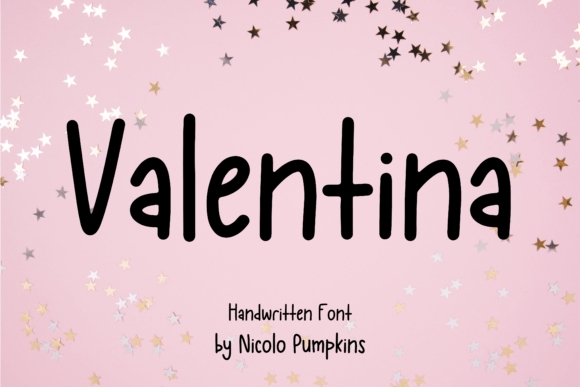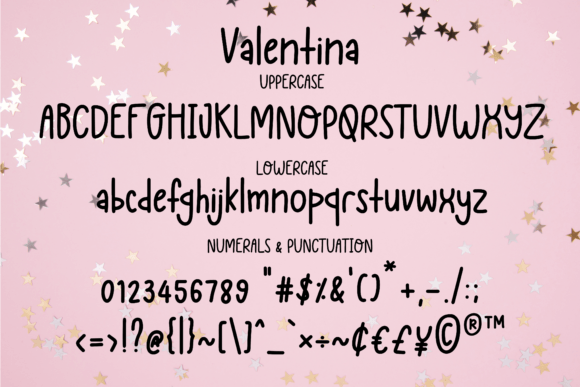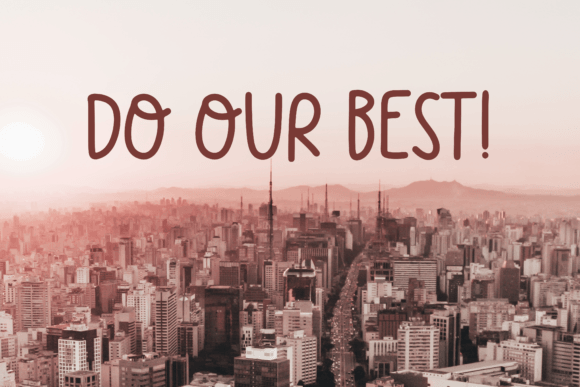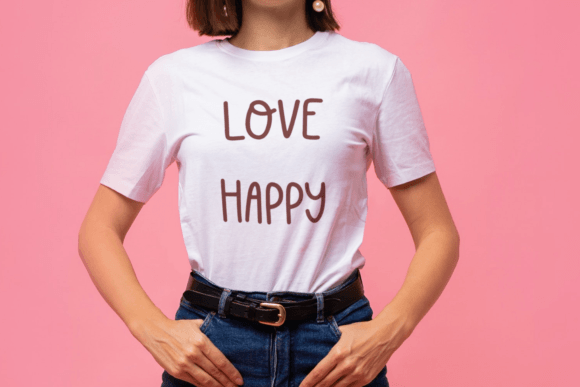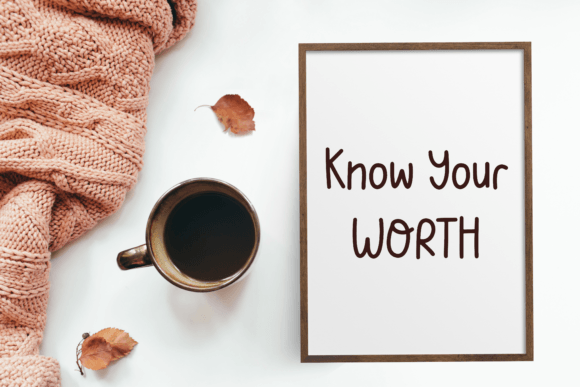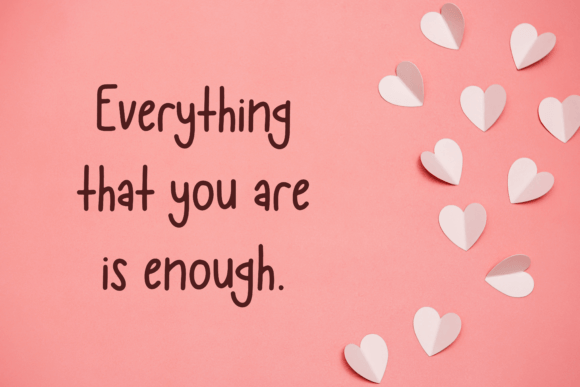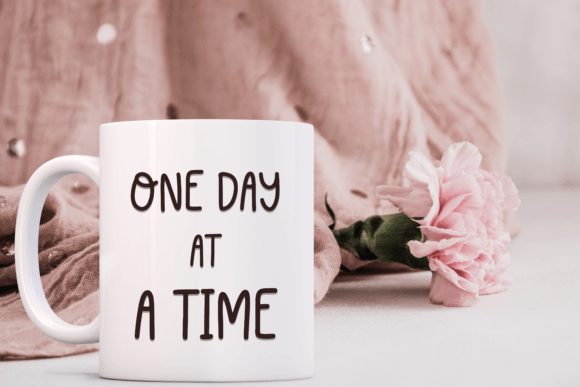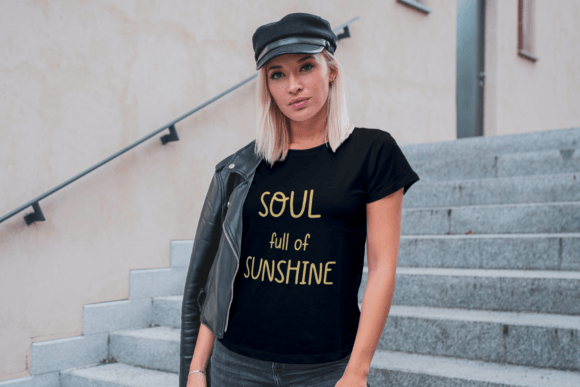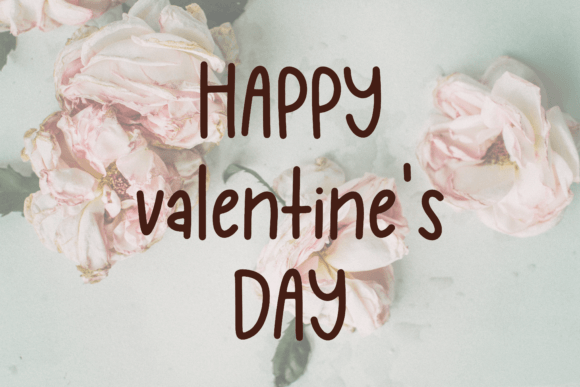
Valentina Font
About Valentina Font
Valentina is a cute and friendly handwritten font that’s perfect for creating quotes, logos, and various lettering products such as t-shirts, cards, tote bags, mugs, and pillowcases—especially well-suited for charming Valentine’s Day designs! This font is PUA encoded, ensuring easy access to all its delightful glyphs and swashes.
The cute and friendly nature of Valentina makes it an ideal choice for projects that require a warm and inviting touch. Whether you’re crafting lovely messages or designing products for a special occasion, Valentina stands out as a font that adds charm and personality.
Imagine Valentina enhancing your designs, whether it’s on adorable Valentine’s Day cards, heartwarming logos, or any project that calls for a cute and friendly handwritten style. The font becomes a key element that not only adds a delightful aesthetic but also infuses a sense of warmth and creativity into your creations.
In summary, Valentina is more than just a font; it’s a design asset that brings cuteness and friendliness to your projects. Embrace its charming style confidently, and let Valentina be the typeface that makes your creative ideas stand out with sweetness and charm.